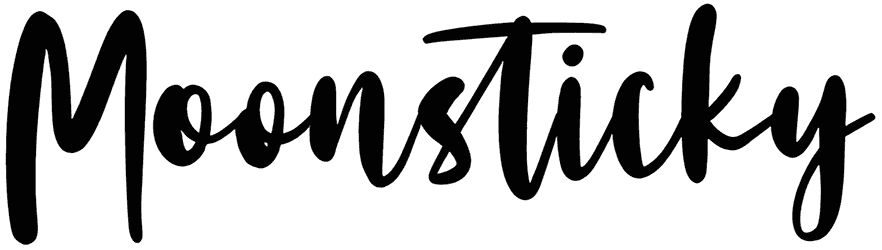
Moonsticky Font
Providing any friendly, warm, and playful sentiment would be exclusively workable through the potency of this cursive script font. Well, the bold and curly letterform makes it distinctive from many projects.
Although this Moonsticky font lacks numbers, it can be admired for its sweet tune and put into any greeting cards, posters, romantic quotes, apparel, and much more. Check out our RB’s inventory to meet more script fonts with a real artistic hint to boom.